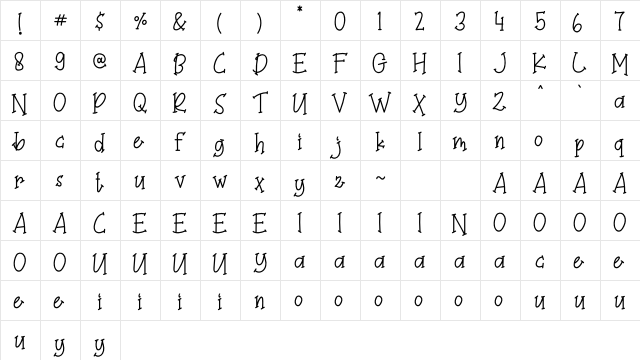
Coffee Milkshake Regular
| Foundry | Airotype Design |
| Designer | Rofiq Soelta |
Design Context for Coffee Milkshake Typeface
Coffee Milkshake is a composed and adaptable typeface that performs quietly and consistently across a wide range of design contexts.